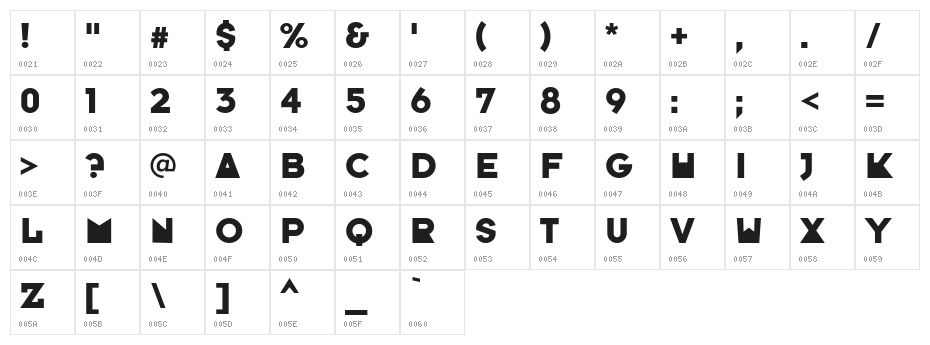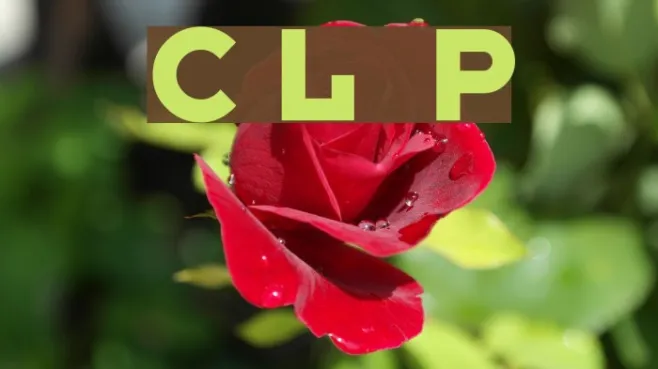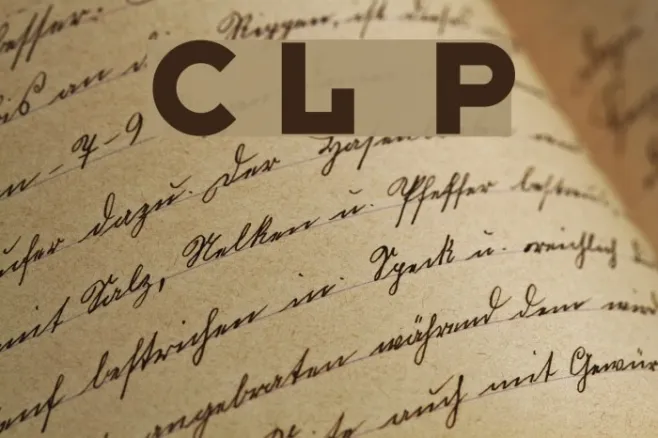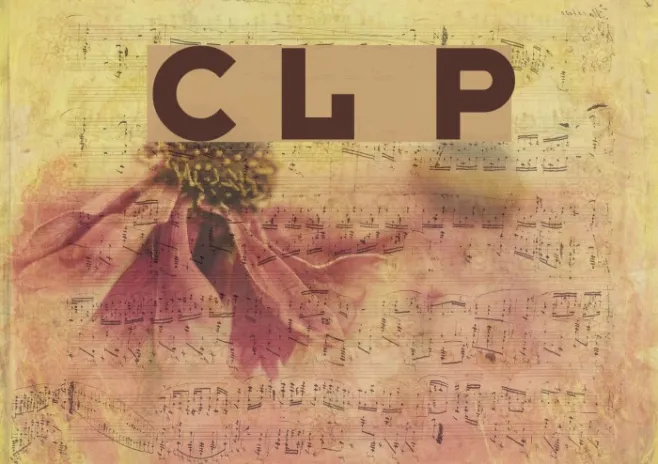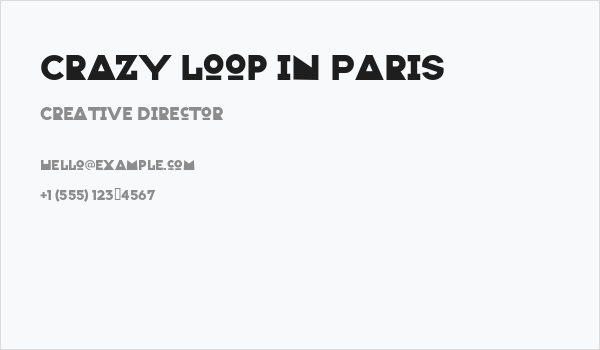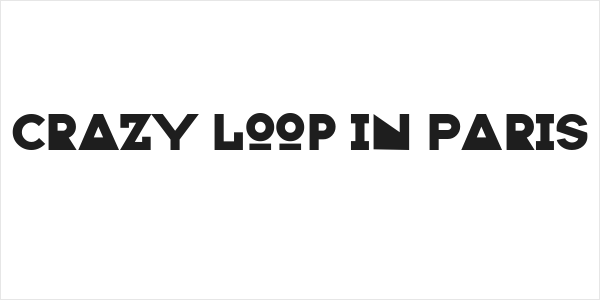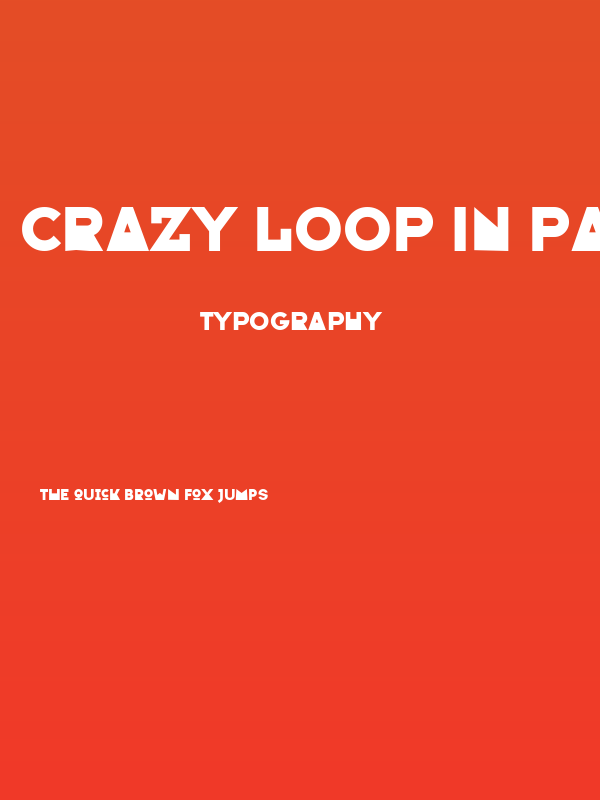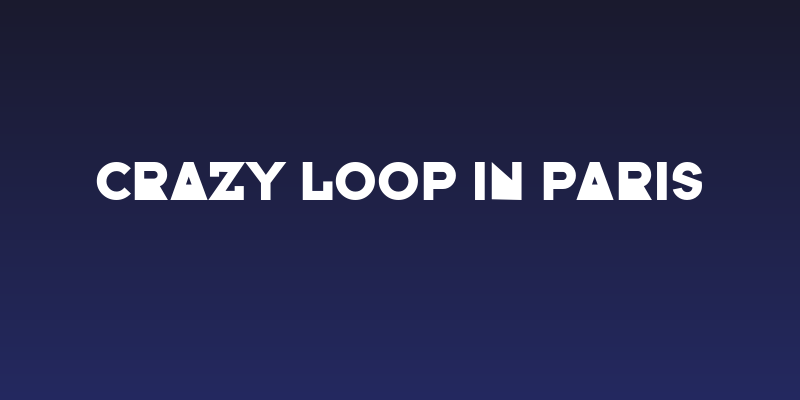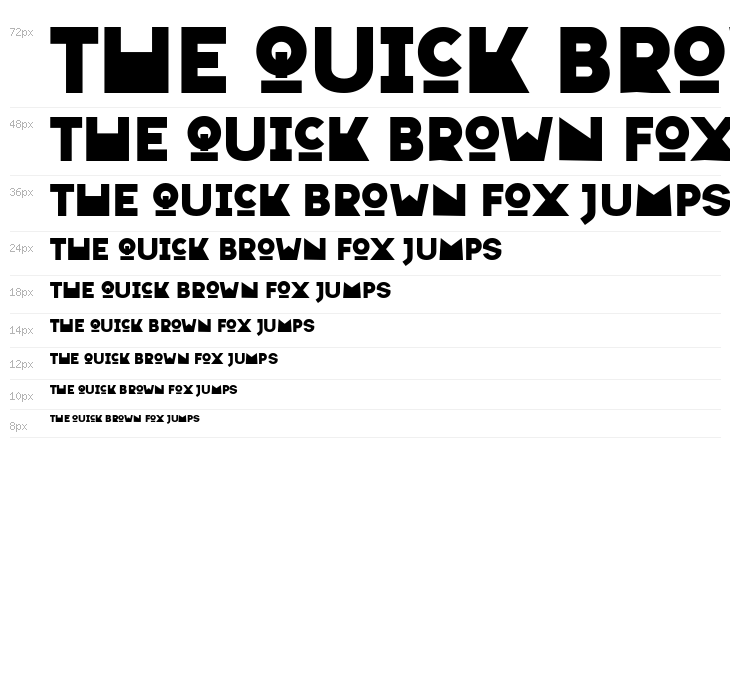
Crazy Loop in Paris Font
Crazy Loop in Paris Description
This font features bold, geometric shapes with a strong visual impact. Each character is crafted with a unique, angular design that emphasizes sharp edges and a modern aesthetic. The uppercase letters are particularly striking, with some characters incorporating unexpected cuts and angles that add a dynamic feel. The numerals and special characters maintain this bold, geometric style, ensuring consistency across all glyphs. This font is ideal for projects that require a strong, contemporary look, such as branding, posters, and headlines.
| Proposed Projects | Ideal for branding, posters, headlines, and any project needing a strong, contemporary look. |